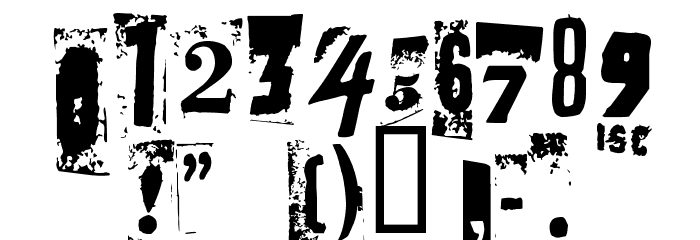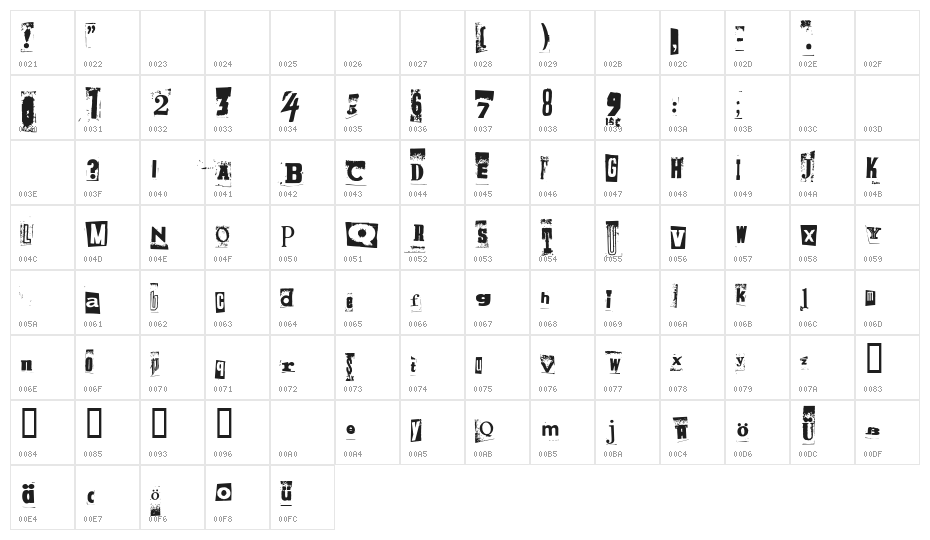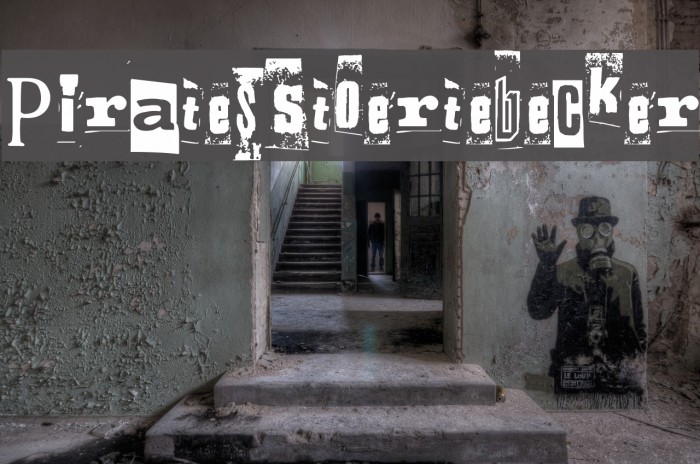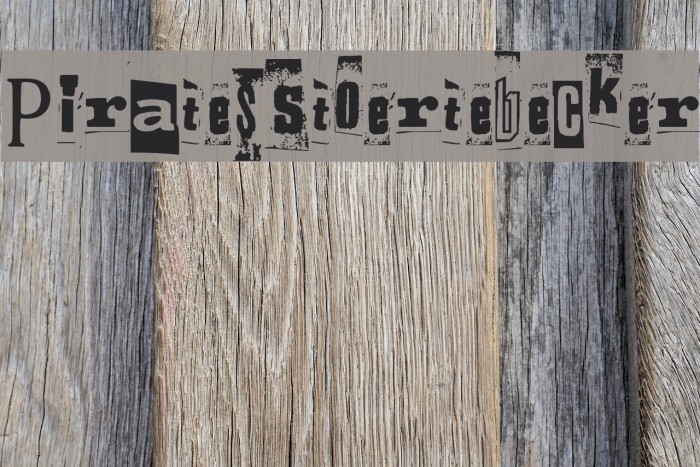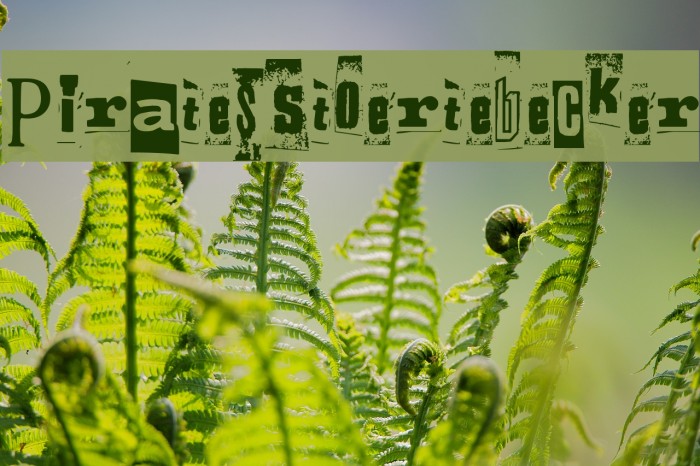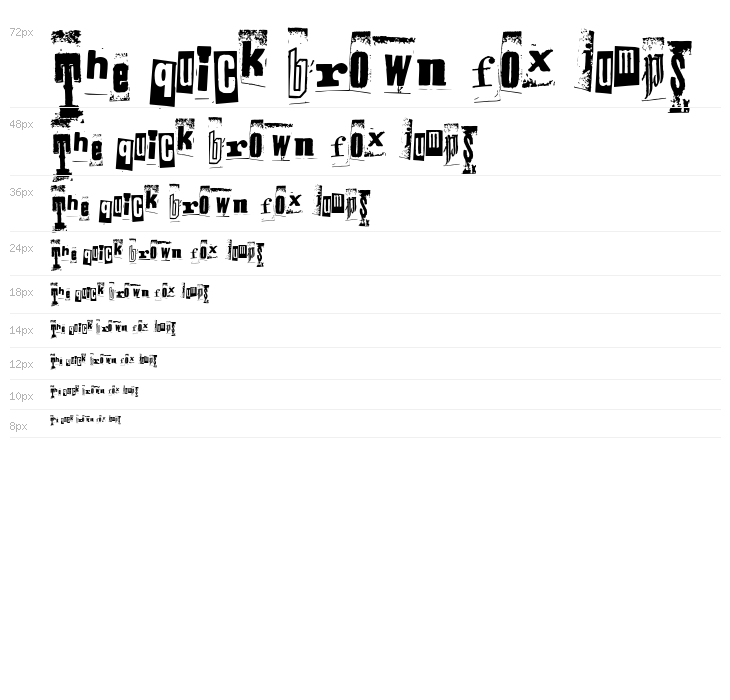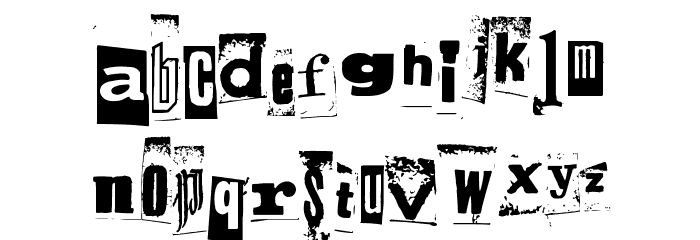
PiratesStoertebecker Font
This font features a highly eclectic and distressed style, reminiscent of cut-out letters from magazines or newspapers. Each character appears unique, with varying levels of wear and tear, giving it a rugged, rebellious feel. The uppercase and lowercase letters, as well as numbers and special characters, exhibit a mix of bold and thin strokes, with some characters appearing more eroded than others. This creates a dynamic and chaotic visual effect, ideal for projects that require a sense of urgency or edginess. The font's uneven baseline and inconsistent character widths add to its handmade, vintage appeal.
| Overall Style | Vintage, Rebellious, Chaotic |
| Use Case | Logos, Posters, Album Covers |
| Proposed Projects | Ideal for punk rock album covers, ransom note designs, edgy posters, and rebellious branding. |